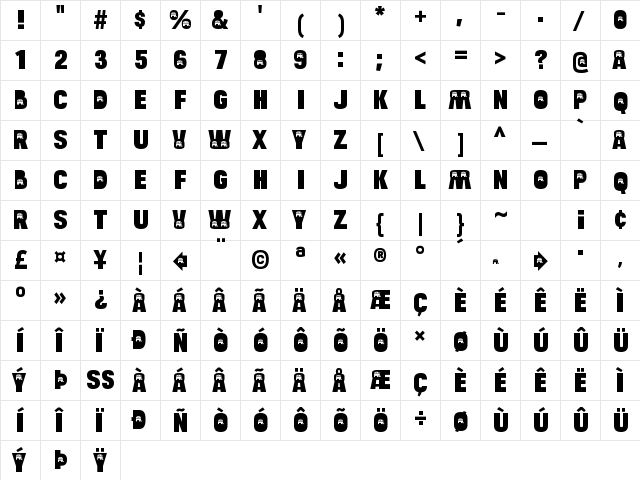
Bulltoad Republican Regular
Design Context for Bulltoad Republican Typeface
Bulltoad Republican is a composed and adaptable typeface that performs quietly and consistently across a wide range of design contexts.